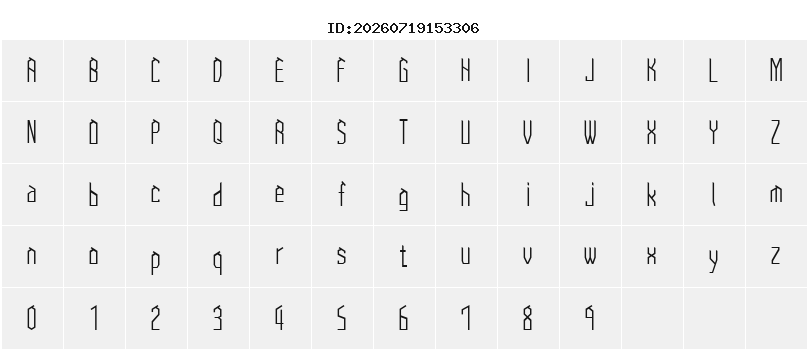
• Font Name: CROOKED
• Designer: greenegg
About CROOKED.ttf
CROOKED.ttf is a modern, elegant sans-serif font designed for ultimate readability and visual harmony. Perfect for branding, headlines, web design, and print materials.